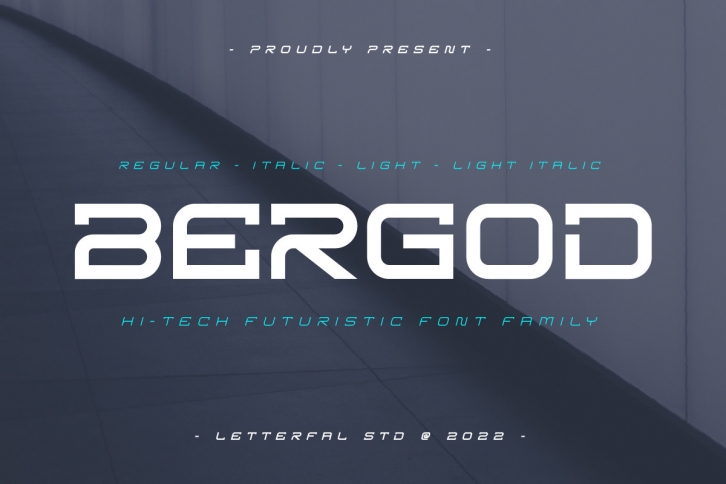
Bergod is a bold and modern looking display font, with a futuristic edge, geometric corners, perfect for technology.
It can be used for various purposes, especially to make logotypes, posters, titles and many more projects.